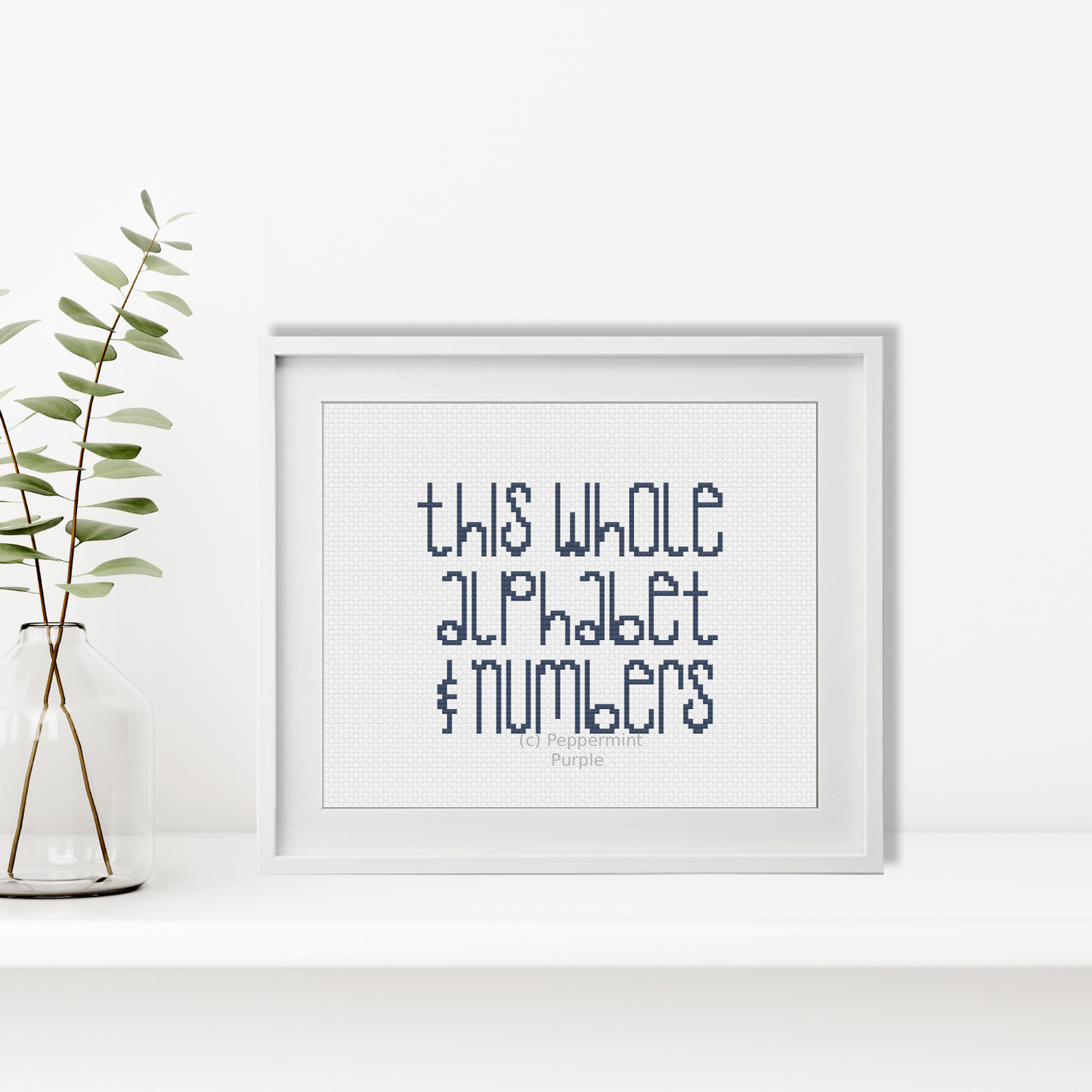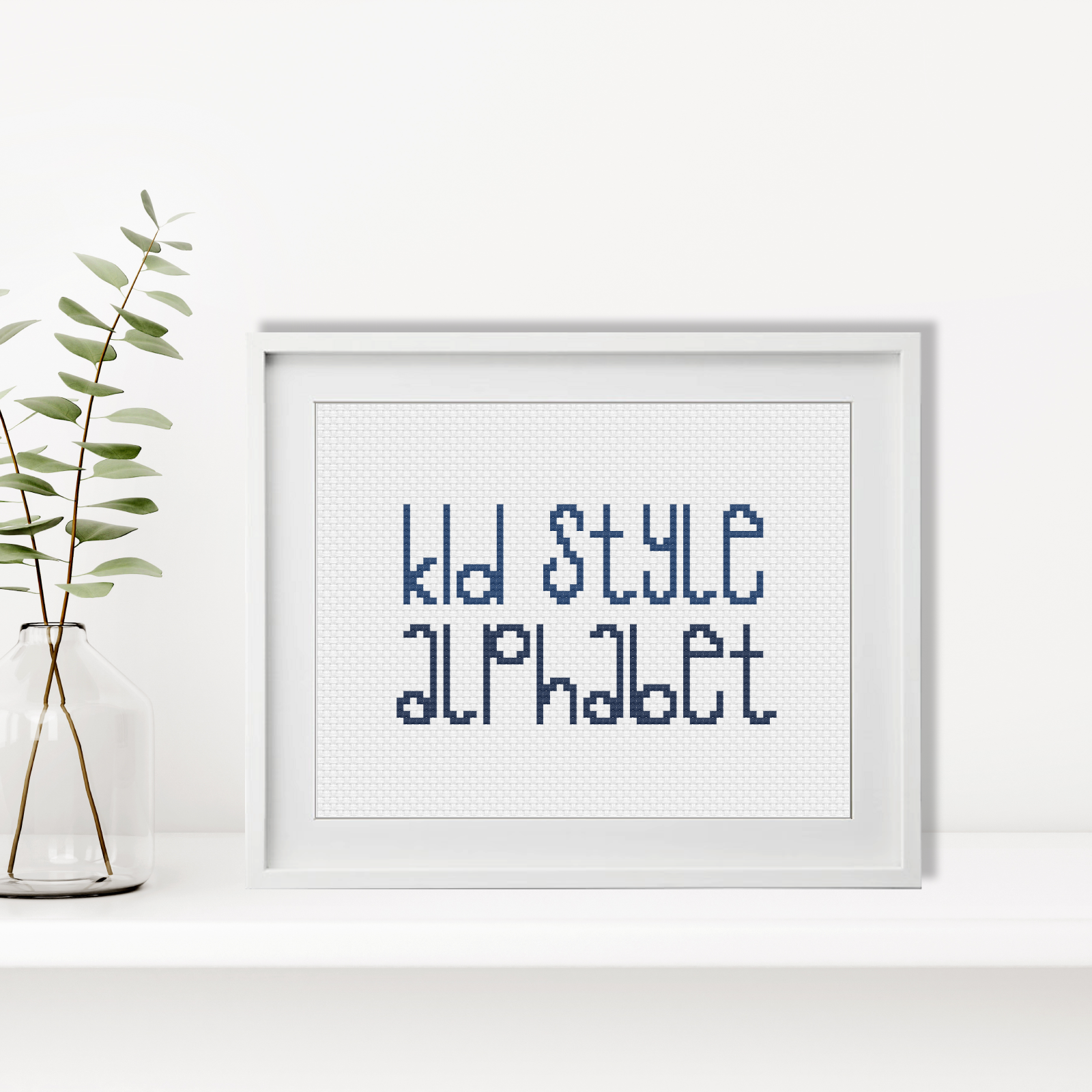
Cross Stitch Font
Tallest letter is 15 stitches high
Please note there are no ‘uppercase’ or ‘lowercase’ with this font as it’s all a mixture of the two.